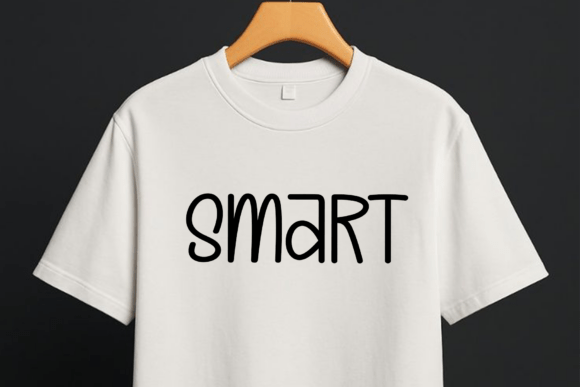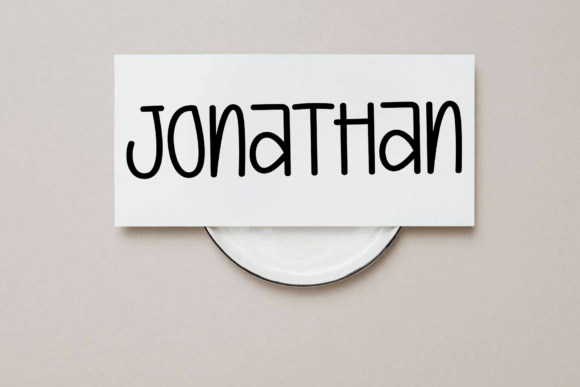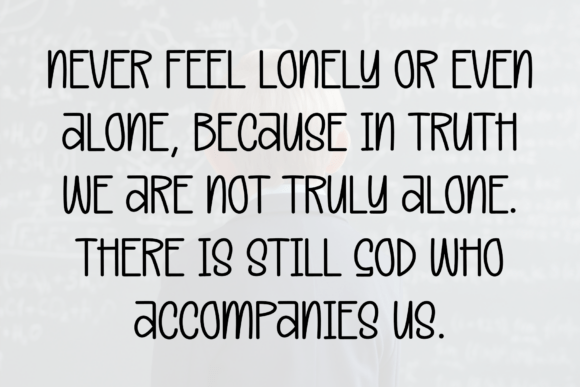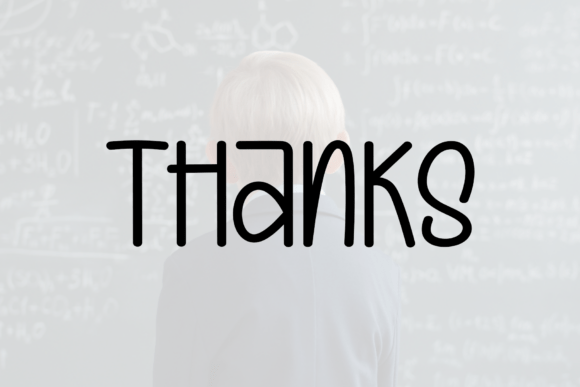
Genius Thinking Font: Elevate Your Designs with a Fresh and Friendly Touch
In the world of typography, fonts play a crucial role in conveying the tone and personality of a design. For designers and crafters looking for a font that embodies modern simplicity with a playful twist, Genius Thinking Font is an excellent choice. This casual display font is designed to bring a fresh and friendly touch to various projects, making it an ideal selection for creative endeavors.
What is Genius Thinking Font?
Genius Thinking Font is a carefully crafted display font that strikes a balance between modern simplicity and a playful, approachable vibe. Its clean shapes, soft edges, and well-balanced letterforms make it an excellent choice for designs that require a touch of relaxation and friendliness. The font’s design ensures that it captures the charm of relaxed design while maintaining clarity and style, making it perfect for a wide range of applications.
Key Features of Genius Thinking Font
- Clean Shapes: The font features clean and straightforward shapes that provide a modern and sleek appearance.
- Soft Edges: The soft edges of the letterforms add a touch of playfulness and approachability to the font.
- Well-Balanced Letterforms: The font’s letterforms are carefully designed to be well-balanced, ensuring that the text is easy to read and visually appealing.
- Versatile Character: Genius Thinking Font has a versatile character that makes it suitable for a wide range of design projects.
- Eye-Catching Appeal: The font’s unique design elements make it stand out and grab attention, making it perfect for designs that need to make a statement.
Use Cases for Genius Thinking Font
Genius Thinking Font is an incredibly versatile font that can be used in various design projects, including:
- Posters: The font’s bold and playful design makes it perfect for creating eye-catching posters for events, promotions, or announcements.
- Branding: Genius Thinking Font can be used to create a unique and memorable brand identity that reflects a company’s personality and values.
- Packaging: The font’s clean and modern design makes it suitable for product packaging, adding a touch of sophistication and style to any product.
- Social Media Graphics: The font’s playful and approachable vibe makes it perfect for creating engaging social media graphics that capture the attention of audiences.
Benefits of Using Genius Thinking Font
Using Genius Thinking Font in your designs offers several benefits, including:
- Readability: The font’s well-balanced letterforms and clean design ensure that the text is easy to read, even at smaller sizes.
- Personality: The font’s playful and approachable vibe adds a touch of personality to any design, making it more engaging and memorable.
- Versatility: Genius Thinking Font can be used in a wide range of design projects, making it a valuable addition to any designer’s font library.
Genius Thinking Font is an excellent choice for designers and crafters looking for a font that embodies modern simplicity with a playful twist. Its clean shapes, soft edges, and well-balanced letterforms make it perfect for a wide range of design projects, from posters and branding to packaging and social media graphics. With its versatile character and eye-catching appeal, Genius Thinking Font delivers both readability and personality, making it an essential font for any designer’s toolkit.
Whether you’re looking to create a fresh and friendly brand identity or add a touch of playfulness to your designs, Genius Thinking Font is an excellent choice. Its unique design elements and versatile character make it an excellent addition to any design project, ensuring that your designs stand out and capture the attention of your audience.